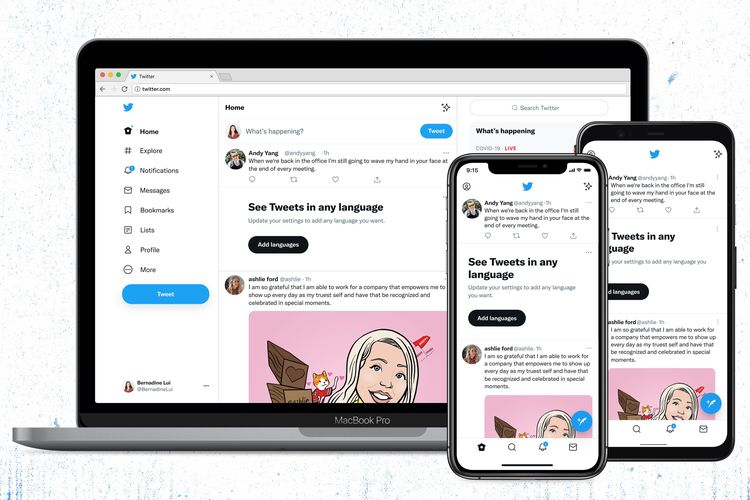
The Twitter font changed, many netizens complained of sore eyes.
Some time ago Twitter has changed the font on the website and in the application. This was not so well received by some people. Many complain of sore eyes and headaches.
For some netizens, the new font is considered more difficult to read, confusing, and too bright. Even this font is a challenge for people who have had visual impairments from the start.
"The writing is smaller and denser so it puts more strain on my eyes," said one user as quoted by the BBC, Tuesday (17/8/2021).
"It is impossible to read if someone has impaired vision and/or mind function," continued another user.
This was also responded by the Twitter. They said they would immediately fix it so things like that don't happen again.
"We changed the contrast on all the buttons so they are easier to see because you said the new design is not comfortable for people with sensitive eyesight. We listened and tried again," wrote Twitter.